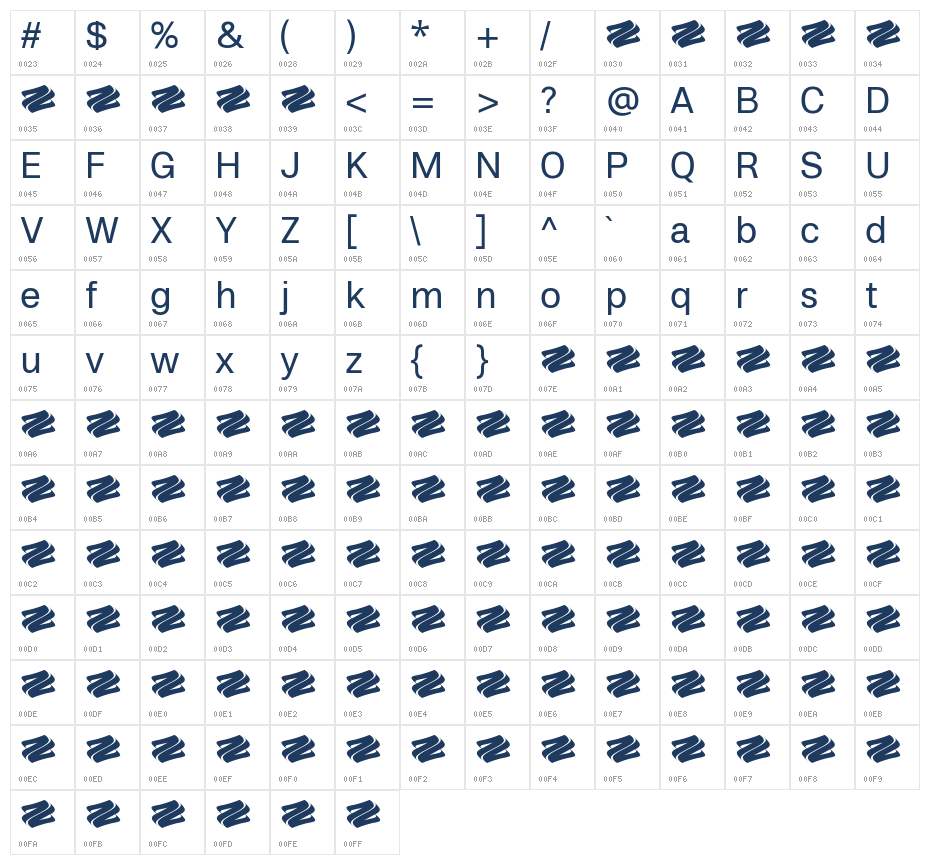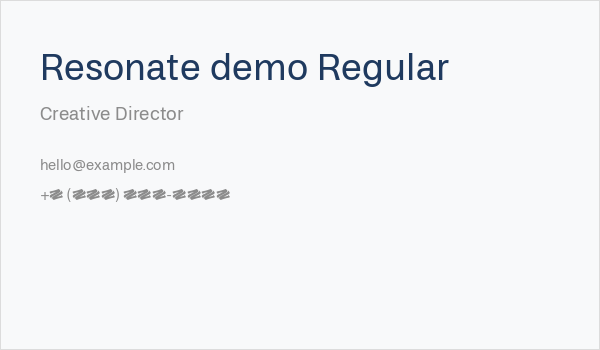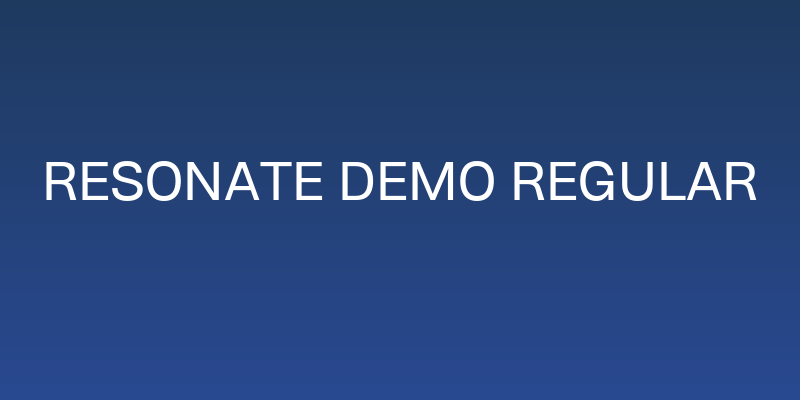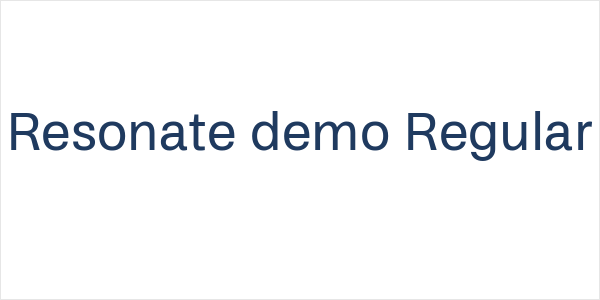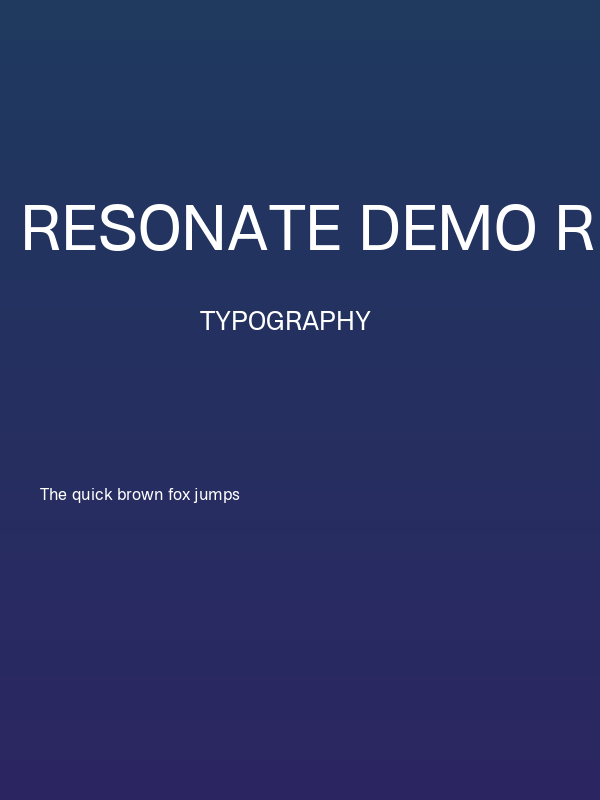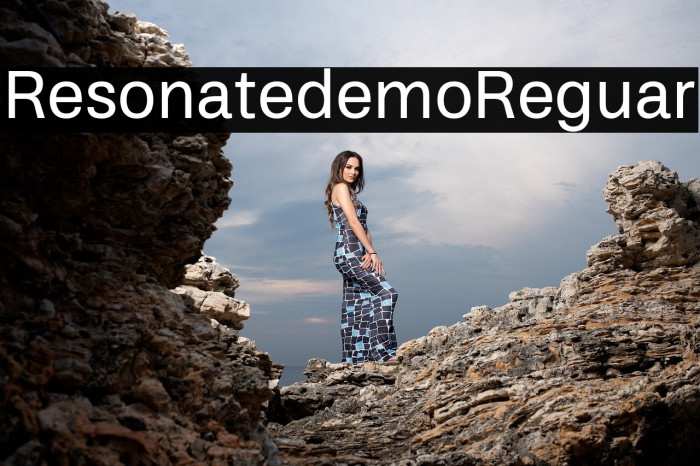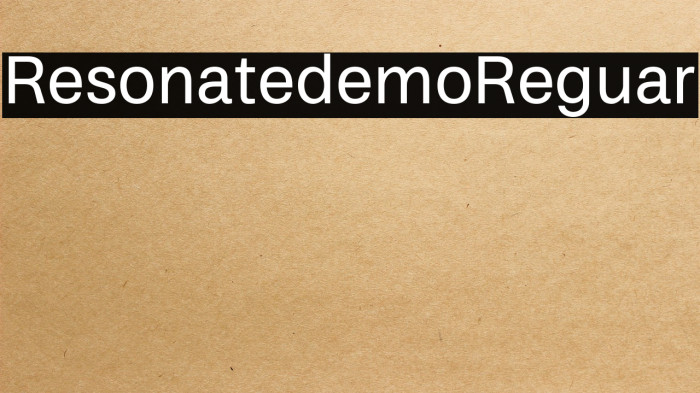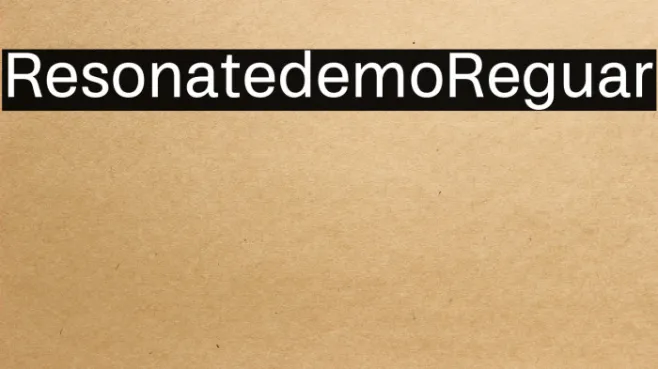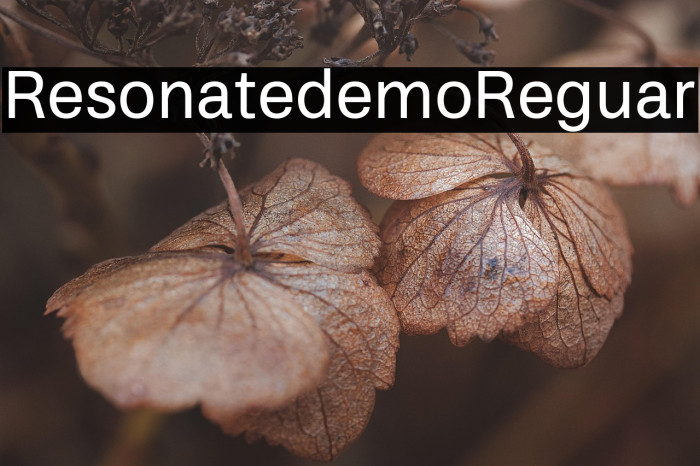
Resonate demo Regular Font
Resonate demo Regular Description
A clean, modern sans-serif font with uniform stroke width and slightly rounded edges, suitable for digital and print use.
| Overall Style | Modern, Friendly |